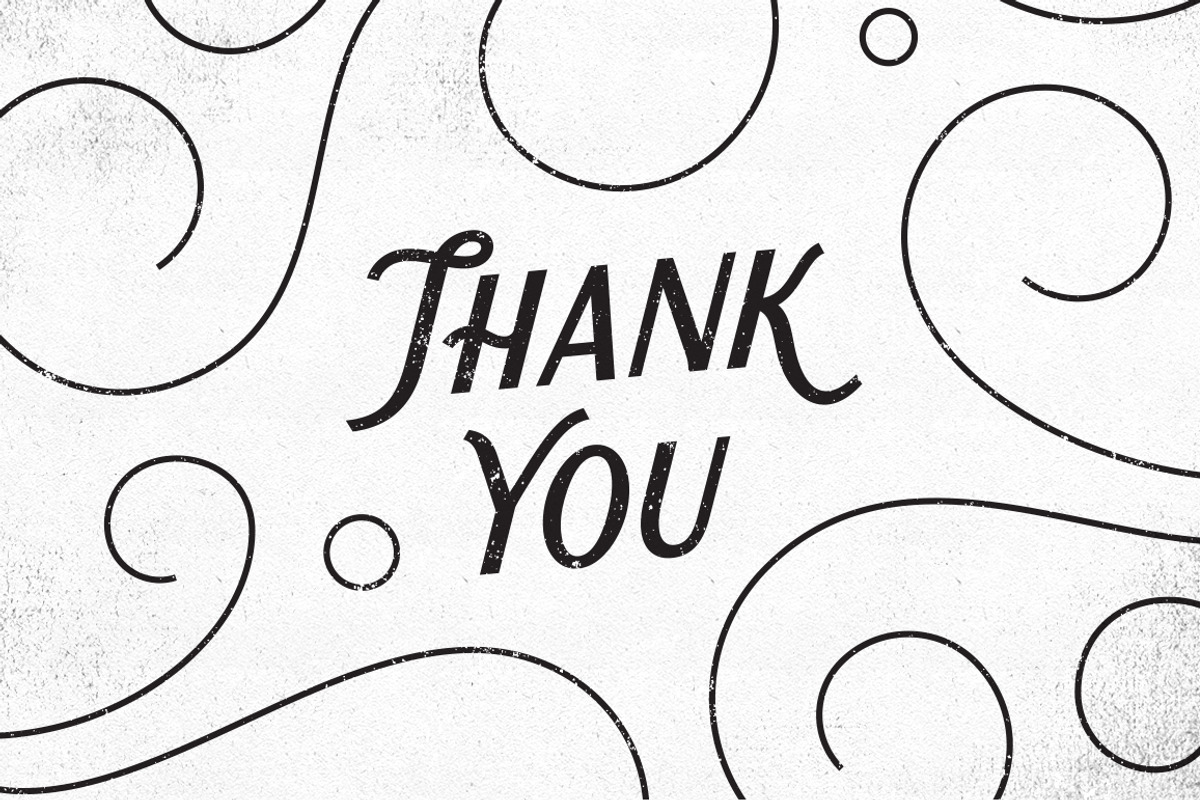
Favor Typeface
Favor Typeface by hampura is a font selected for branding, posters, packaging, typography.
- The font have standard ligatures and stylistic alternates so you can be manual setting letter by letter what you want.
Why Favor Typeface is worth a look
Favor Typeface by hampura fits naturally into Branding, posters, packaging, typography.